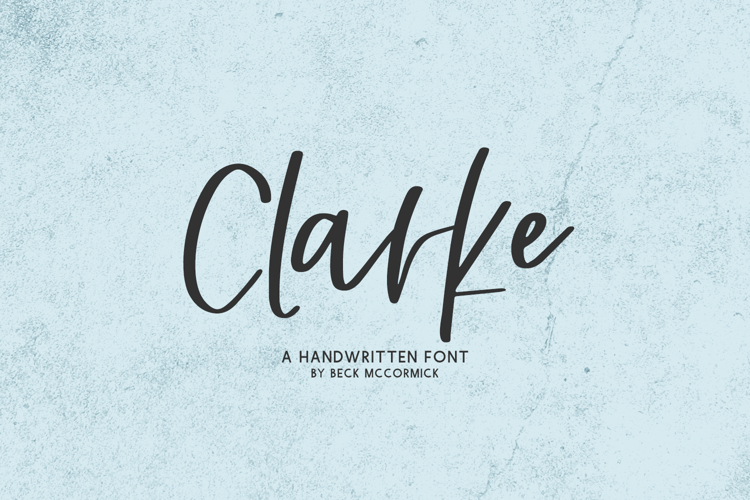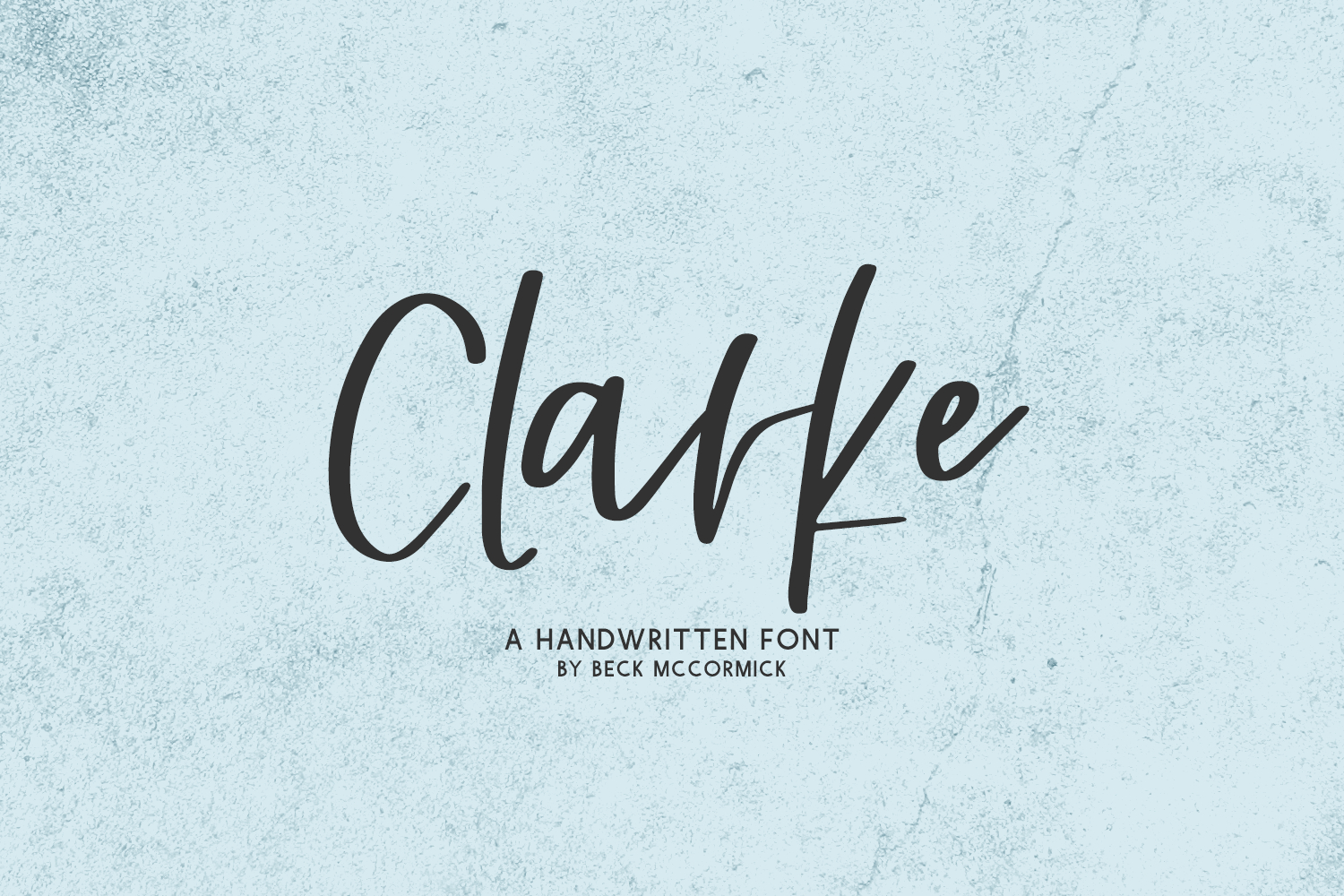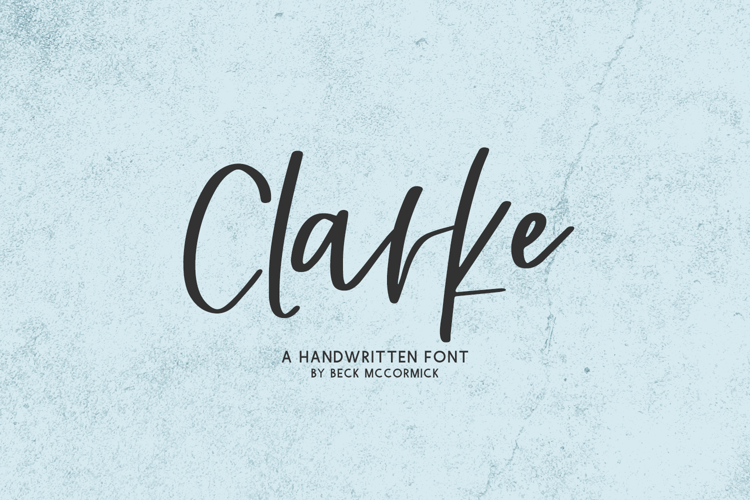
Clarke Script
Introducing Clarke, a handlettered modern calligraphy script. Accessory features double letter ligatures to enhance the natural handwriting look.
- 26 ligatures - aa, bb, cc, dd, ee, ff, gg, hh, ii, jj, kk, ll, mm, nn, oo, pp, qq, rr, ss, tt, uu, vv, ww, xx, yy, zz
Clarke Script